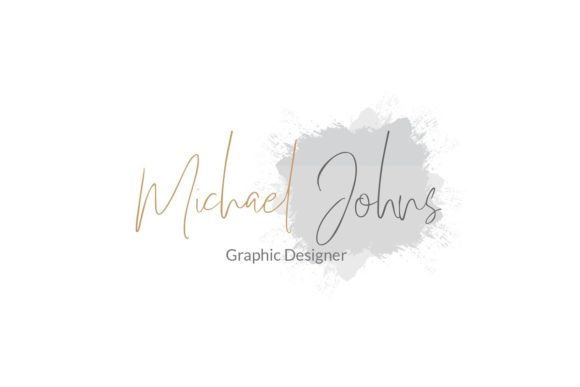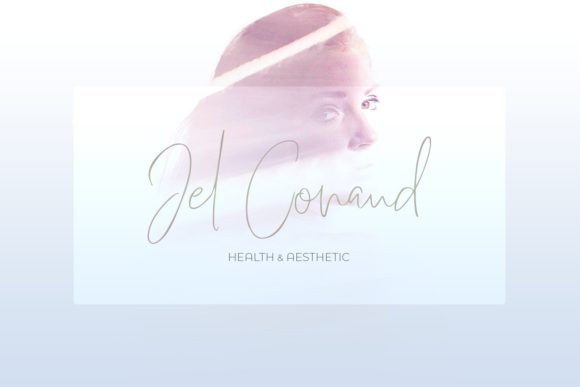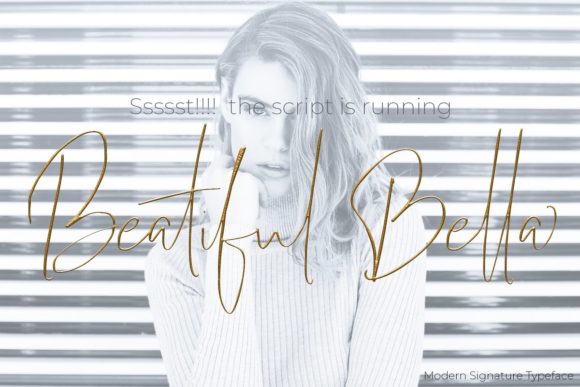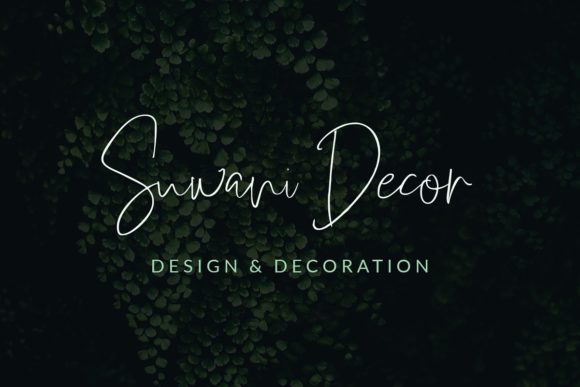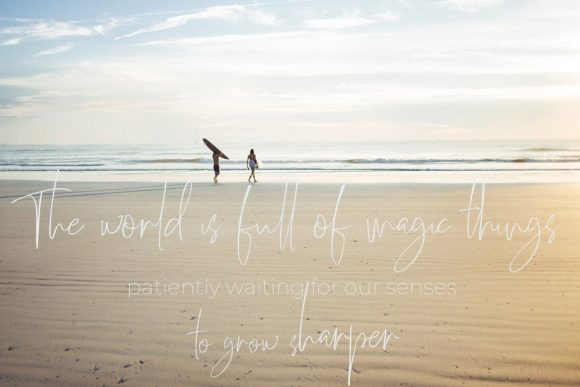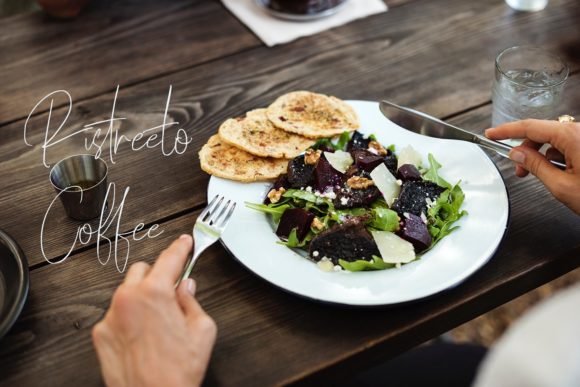
Introduction to Officielle Script Font
Have you ever been working on a design project and you just can’t seem to find the right font to bring it all together? The perfect font can make all the difference in elevating your design from good to great. For me, that moment came when I stumbled upon the Officielle Script Font. Its unique, handwritten feel instantly caught my eye and I knew I had to learn more.
As a designer, you’re always on the lookout for high-quality design resources to add that extra oomph to your creative projects. And let me tell you, the Officielle Script Font is a game-changer. With its transparent background and beautiful, flowing lines, it’s the perfect addition to any design project that needs a touch of elegance and sophistication.
Whether you’re working on a free download or a paid project, the Officielle Script Font is a valuable asset that’s sure to impress. In this article, we’ll take a closer look at this stunning font and explore its many uses and benefits.
Key Features of Officielle Script Font
- High-quality design resource for creative projects, ideal for weddings, invitations, and other elegant events.
- Unique characteristics include a flowing script style and elegant flourishes, perfect for adding a touch of sophistication to any design.
- Designed to be versatile and easy to use, making it an excellent choice for designers of all skill levels.
Honest Review: Officielle Script Font
As a designer, I’m always on the lookout for high-quality design resources to elevate my creative projects. Recently, I stumbled upon the Officielle Script Font, and I’m excited to share my honest review with you.
What works well: ✨ The Officielle Script Font is a beautiful, elegant script font that’s perfect for adding a touch of sophistication to your designs. It’s highly legible and works well for both digital and print projects. The font also comes with a transparent background, making it easy to customize and combine with other design elements.
Some limitations: ⚠️ While the Officielle Script Font is free to download, it’s only available in a limited number of font weights and styles. This may limit its versatility for more complex design projects. Additionally, the font may not be suitable for projects that require a more modern or edgy feel.
Overall impression: I’m really impressed with the Officielle Script Font, and I think it’s a great addition to any designer’s toolkit. It’s a high-quality, versatile font that’s perfect for a variety of creative projects. If you’re looking for a elegant script font to add some sophistication to your designs, I’d definitely recommend giving the Officielle Script Font a try.
- High-quality, elegant script font
- Perfect for digital and print projects
- Limited font weights and styles
How to Use Officielle Script Font
Officielle Script Font is a high-quality design resource that offers a unique and elegant script style. This font is perfect for adding a touch of sophistication to your creative projects, whether it’s a logo, invitation, or social media graphics.
Tips for Getting the Most Out of Officielle Script Font
To get the most out of Officielle Script Font, use it with a transparent background to create a clean and elegant look. You can also pair it with other fonts to create a unique and eye-catching design.
Officielle Script Font is perfect for:
- Invitation design
- Wedding stationery
Alternatives to Officielle Script Font
When searching for a high-quality design resource, finding the right script font can make all the difference in your creative project. Here are a few alternatives to consider:
Great Vibes is a beautiful, high-quality script font perfect for adding a touch of elegance to your design. It features a flowing, handwritten style that works well for titles, quotes, and other display text.
When to use: Great Vibes is ideal for formal or professional projects where a sophisticated, high-end feel is desired. It compares favorably to Officielle Script Font in terms of its refined, polished look.
2. Carolyna Pro
Carolyna Pro is a modern, elegant script font that’s perfect for adding a touch of sophistication to your design. It features a clean, minimalist design that works well for titles, headings, and other display text.